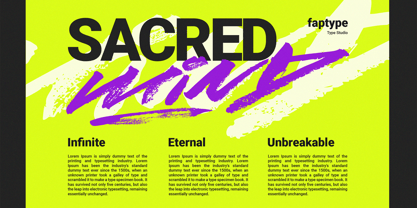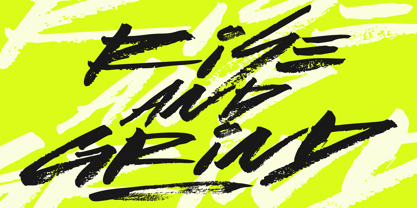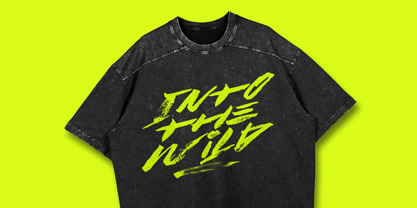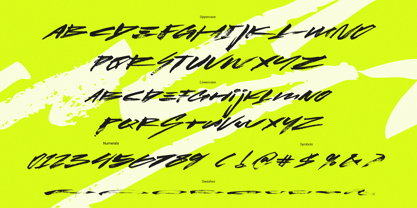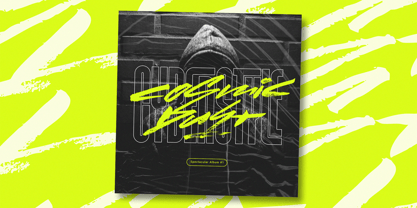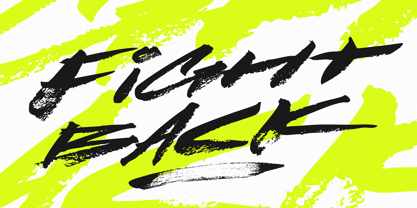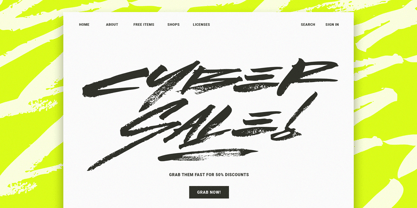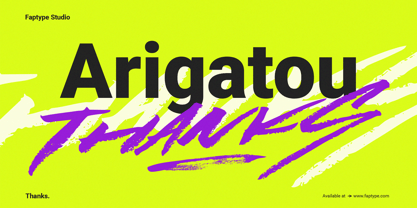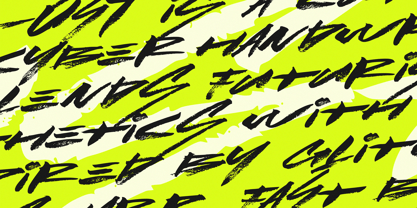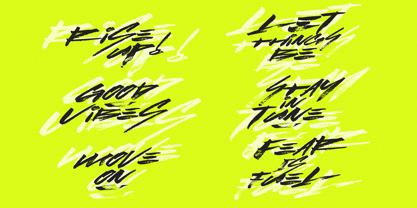
Lust Cyber
Introducing LUST – a font that doesn’t whisper in the dark… it shouts through static.
In a world of flickering neon lights and digital ruins, LUST is your weapon of expression. This cyber handwritten brush font bleeds rebellion and urgency, as if scribbled by an underground coder moments before the firewall explodes. It’s raw, imperfect, and unapologetically alive—just like the voice of a hacker who still believes in beauty amidst the chaos.
Every stroke of LUST carries intentional distortion—not a glitch, but a signature. It mimics the rush of adrenaline during a midnight data heist, the rhythm of pulse pounding beneath neon skies. The rough brush texture simulates human urgency in a synthetic world—where typography becomes resistance and every letter, a piece of soul.
LUST is more than a typeface. It’s a visual ideology. Whether you’re crafting streetwear branding, vaporwave posters, cyberpunk interfaces, or grunge music covers—this font makes your message feel electric, imperfect, and undeniably human. Because in the end, even in digital dystopia, emotion is the ultimate code.
Lust Features:
• A full set of Uppercase and Lowercase
• Numbers and Punctuation
• Multilingual Language Support
• PUA Encoded Characters
• OpenType Features
• +247 Total Glyphs